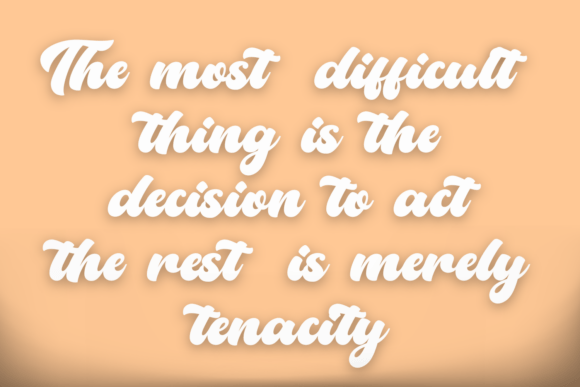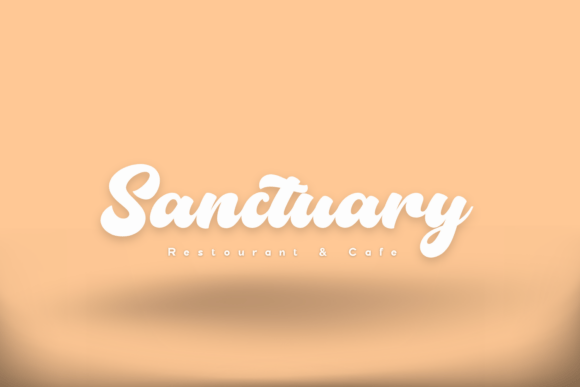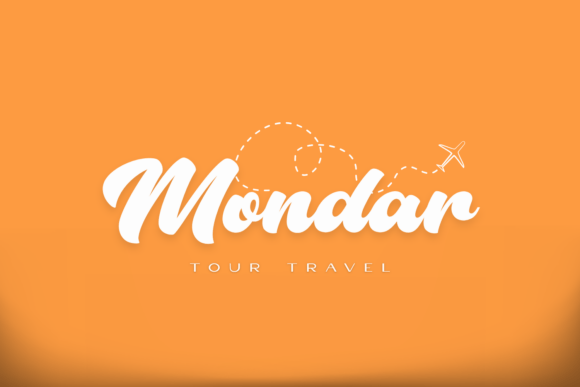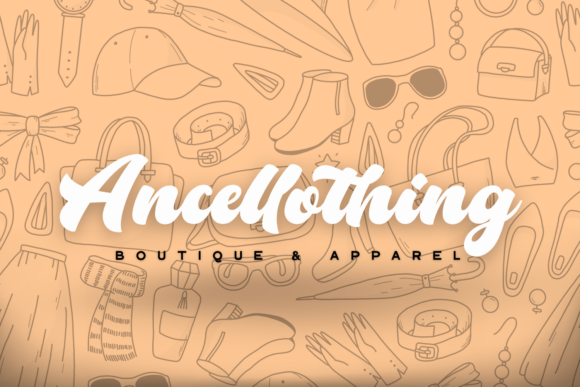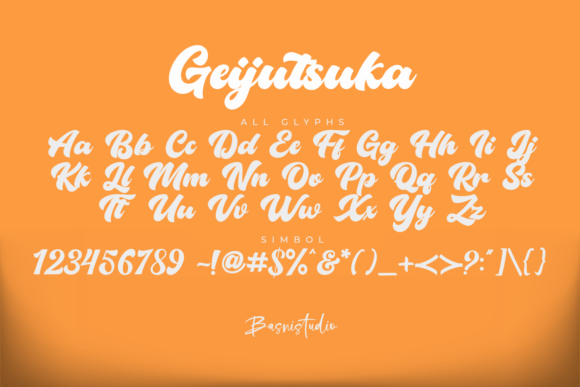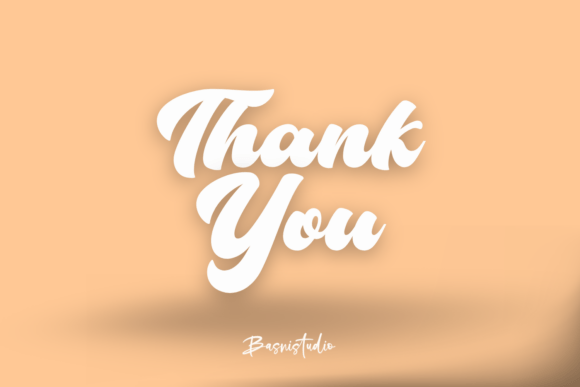
✨ Introducing Geijutsuka Script Font: Make Your Message Unforgettable
In the world of design, fonts play a crucial role in conveying messages, expressing emotions, and creating a lasting impression. Among the numerous fonts available, Geijutsuka Script Font stands out for its unique blend of style, confidence, and attitude. 🖋️ In this article, we’ll explore the features, benefits, and uses of Geijutsuka, and why it’s the perfect choice for designers and crafters looking to make a statement.
What is Geijutsuka Script Font?
Geijutsuka is a script font designed to make a lasting impact. Its name is derived from the Japanese term “Geijutsuka,” meaning “artistic” or “creative.” This font embodies the essence of artistry, with every curve, line, and letter exuding confidence and style. 💥 Geijutsuka is not just a font; it’s an attitude, a statement, and a way to express yourself with boldness and flair.
Key Features of Geijutsuka Script Font
- Sharp and Stylish: Geijutsuka boasts sharp, clean lines and a stylish aesthetic that’s perfect for making a statement.
- Unapologetically Bold: This font is designed to be bold and eye-catching, making it ideal for headlines, posters, and branding.
- Attitude in Every Curve: Geijutsuka’s unique curves and lines give it a distinctive personality that’s hard to ignore.
- Confidence in Every Letter: Each letter is crafted to convey confidence and style, making Geijutsuka a font that’s hard to forget.
Geijutsuka Script Font is a versatile tool that can be used in a variety of design projects, including:
- Posters: Create eye-catching posters that grab attention with Geijutsuka’s bold and stylish letters.
- Headlines: Make your headlines stand out with Geijutsuka’s confident and artistic flair.
- Branding: Use Geijutsuka to create a lasting impression with your brand’s identity and messaging.
- Logos: Design unique and memorable logos that showcase your brand’s personality with Geijutsuka.
Why Choose Geijutsuka Script Font?
With so many fonts available, why choose Geijutsuka? Here are a few compelling reasons:
- Uniqueness: Geijutsuka’s distinctive style sets it apart from other fonts, ensuring your design stands out.
- Versatility: This font can be used in various design projects, from posters to branding and more.
- Emotional Connection: Geijutsuka’s bold and confident personality helps create an emotional connection with your audience.
Tips for Using Geijutsuka Script Font
To get the most out of Geijutsuka, here are some tips:
- Use it Sparingly: Geijutsuka’s bold personality works best when used sparingly, such as in headlines or key messaging.
- Pair it with Neutrals: Balance Geijutsuka with neutral fonts to create visual harmony and make your design pop.
- Experiment with Colors: Try Geijutsuka with different colors to find the perfect combination that matches your brand’s style.
Geijutsuka Script Font is a powerful tool for designers and crafters looking to make a statement. With its unique blend of style, confidence, and attitude, Geijutsuka is perfect for creating unforgettable messages, posters, headlines, and branding. 💥 Whether you’re looking to add a touch of artistic flair or make a bold statement, Geijutsuka is the perfect choice. So why settle for ordinary fonts when you can make a lasting impression with Geijutsuka? 🖋️